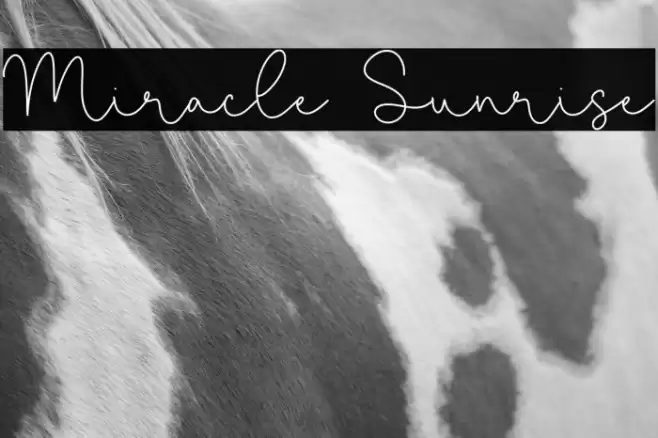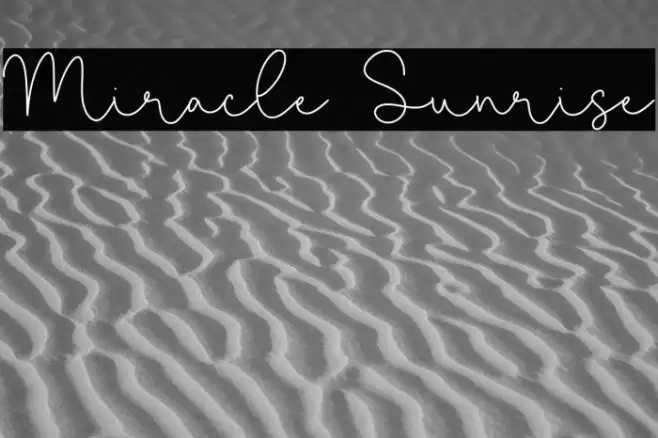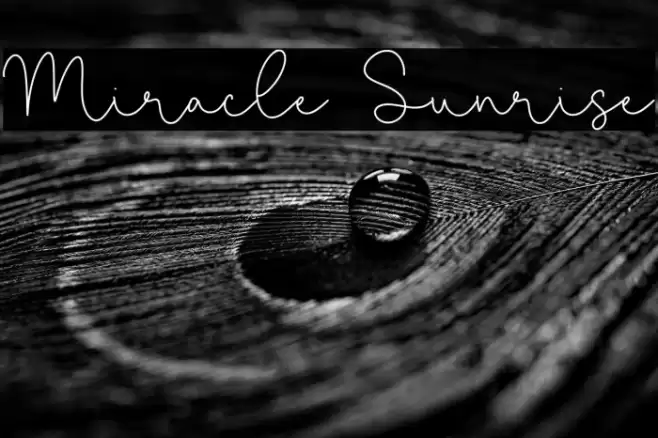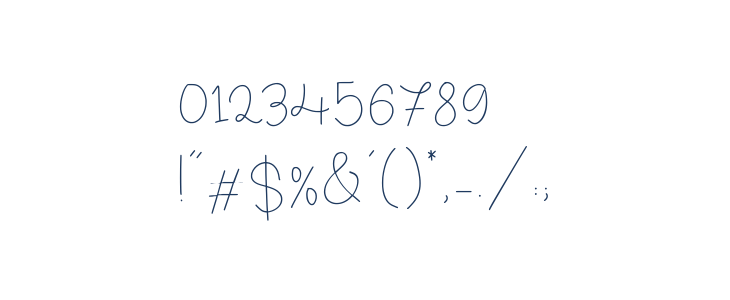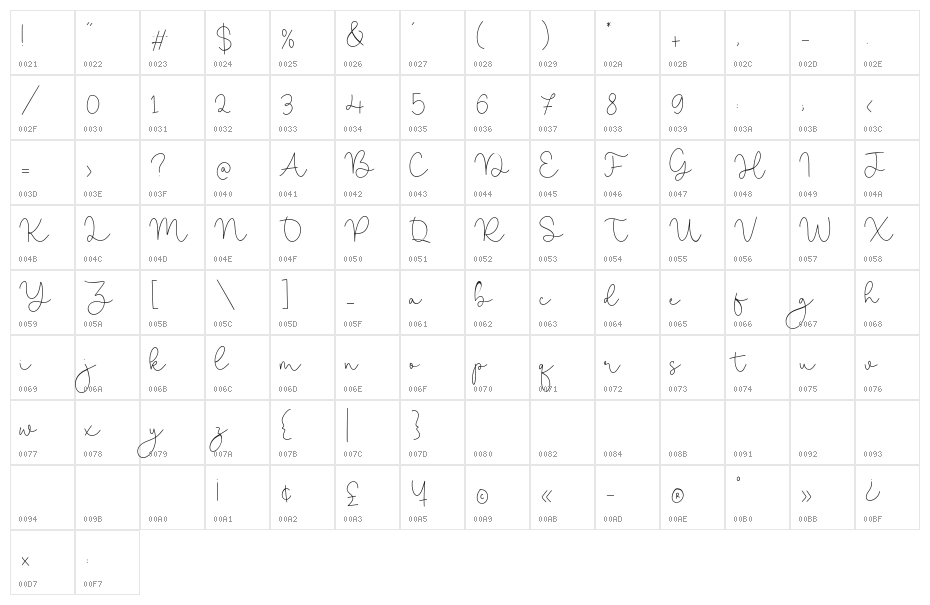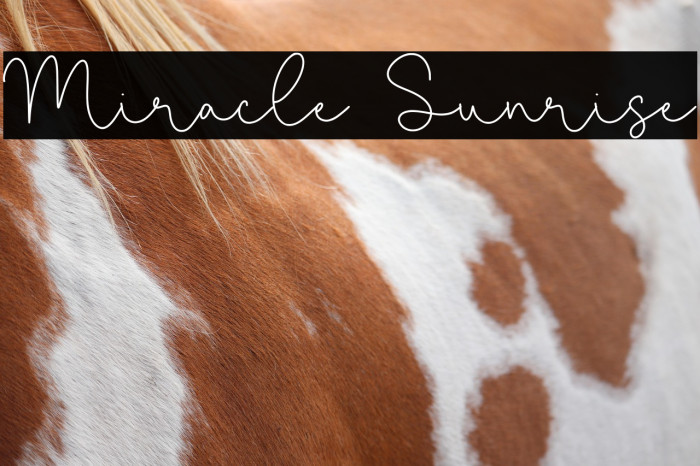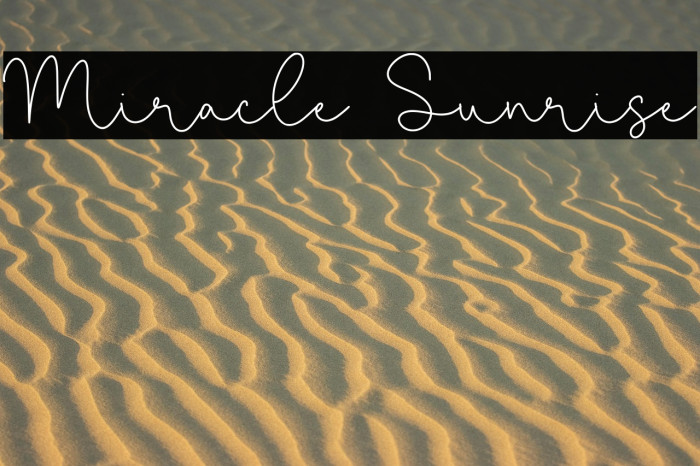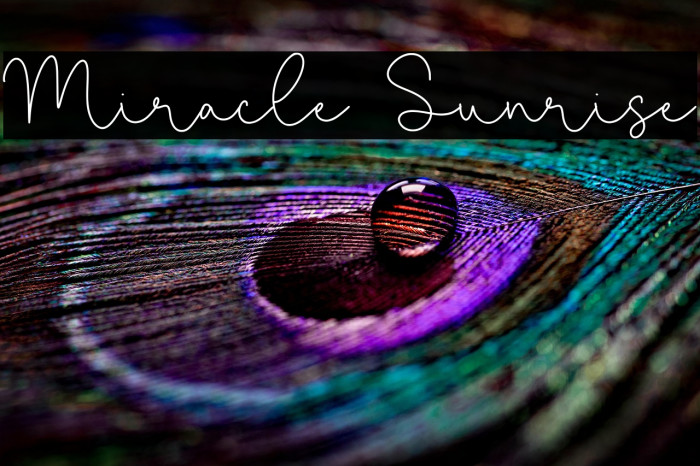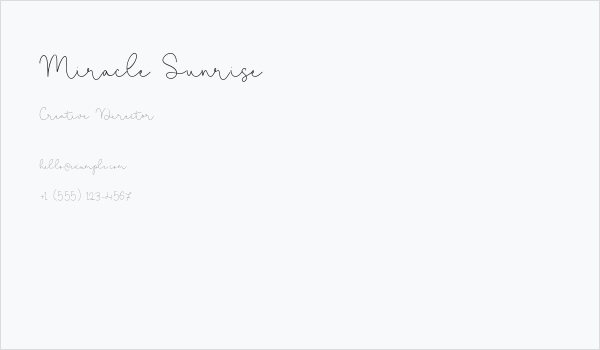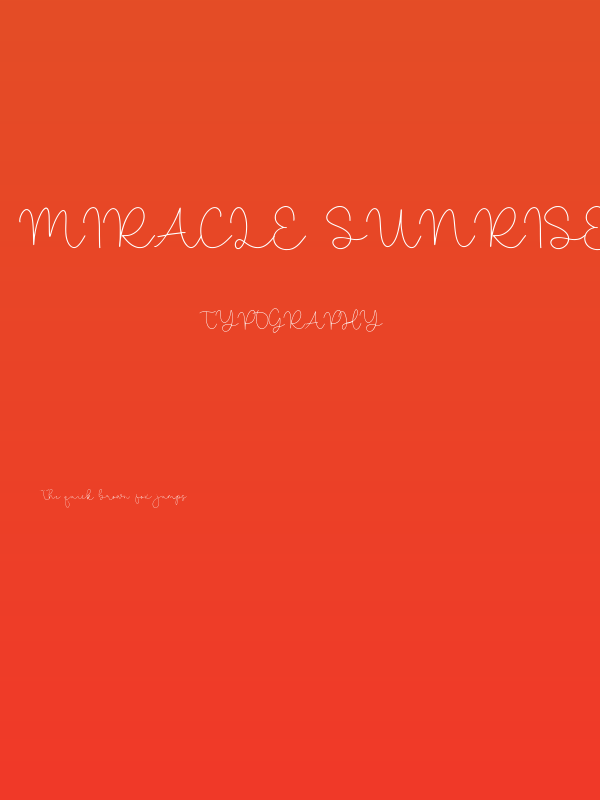
Miracle Sunrise Font
Miracle Sunrise Description
This font features a delicate and flowing script style, characterized by its elegant, cursive letterforms. The uppercase letters are gracefully looped, with a consistent stroke width that adds to its refined appearance. Lowercase letters maintain a cohesive flow, connecting seamlessly in a manner reminiscent of traditional handwriting. The numerals and special characters are crafted with the same attention to detail, ensuring a harmonious look across all glyphs. This font exudes a sense of sophistication and charm, making it ideal for projects that require a personal touch.
A graceful and elegant script font with flowing, cursive letterforms from Regular fonts.
- Proposed Projects: Ideal for wedding invitations, greeting cards, personal branding, and elegant packaging designs.
- Overall Style: Elegant
- Use Case: Logos, Invitations, Greeting Cards